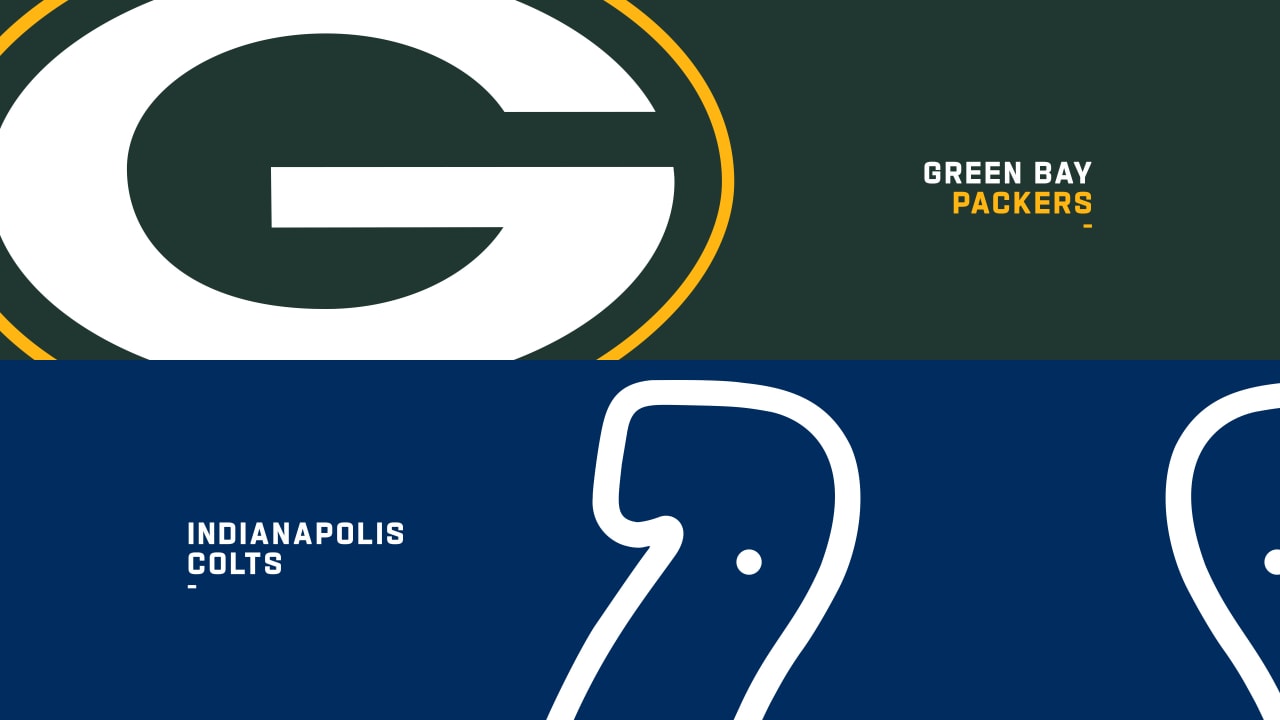
Green Bay Font
Green bay font. Submit a font tools. Watch the packers play online. Georgia tech actually has the same font of the g on both the green bay packers logo and their own.
The wordmark is set in a stencil font which is very similar to gi. The text generator section features simple tools that let you create graphics with fonts of different styles as well as various text effects. Green bay packers logo font.
A good minimum space would be the equivalent of the width of the g at the start of the words green bay in the two line wordmark and there should be no extraneous lines shadowing type or images intruding. Green bay packers logo green bay. Jerk designed by nerfect type laboratories.
Green bay packers logo black and white. The green bay packers redesigned logo resembles a football with the letter g inside it having the same shape. Download the free font replicating the green bay packers logo and many more at the original famous fonts.
The alternate green bay packers logo is a yellow square featuring the primary logo and the packers wordmark beneath which is written in a stencil font. The teams official colors are dark green gold white. Font meme is a fonts typography resource.
What font does the green bay packers use for its football. You can download the font for free here.